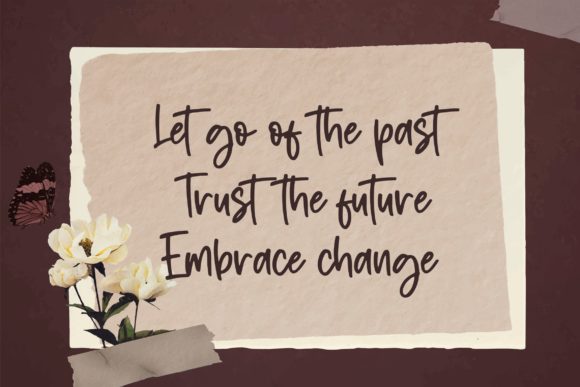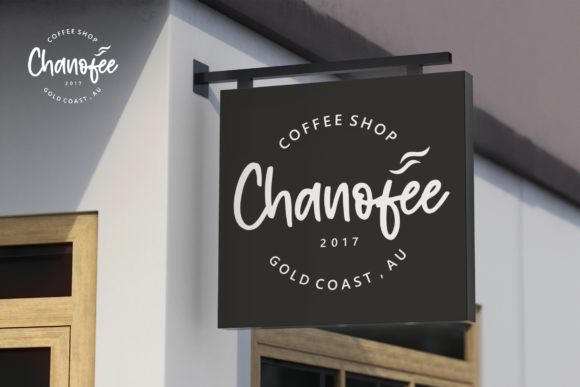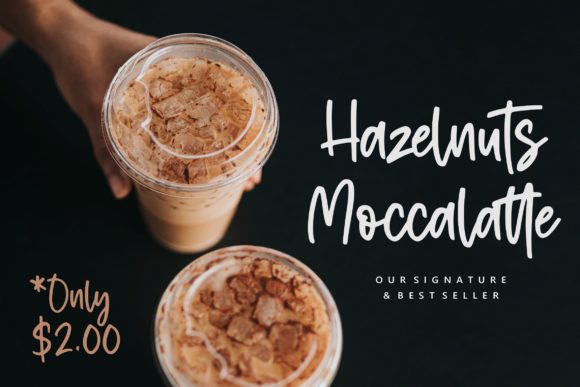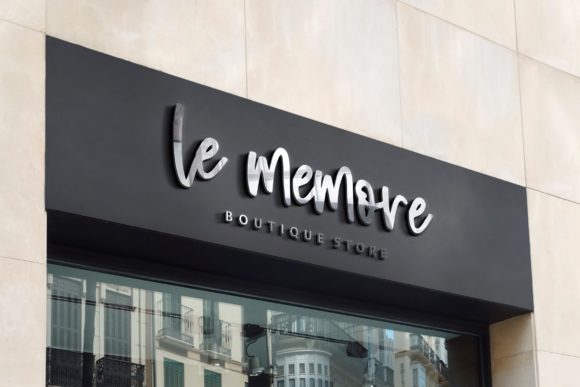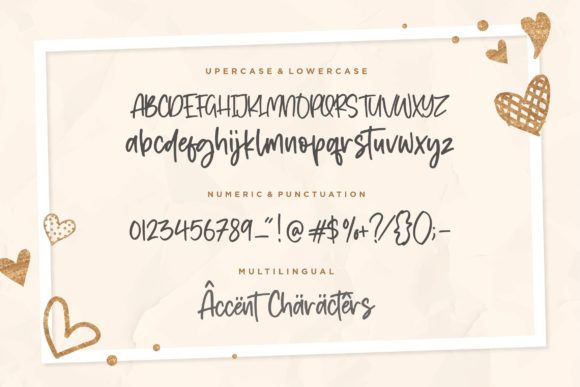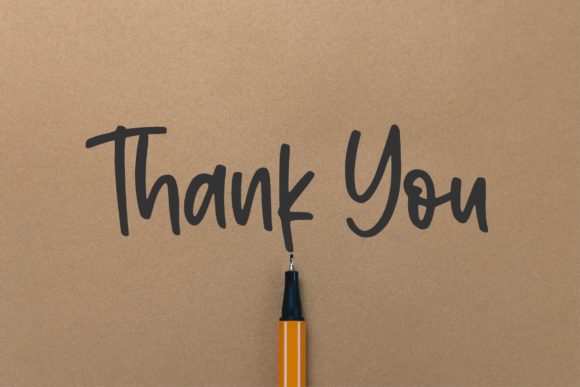
A Touch of Whimsy: Discovering the Delight of Austrian Script Font
Have you ever stumbled upon a beautiful handwritten note from a loved one, and felt an instant rush of warmth and happiness? For many of us, the imperfections and flourishes of a handwritten script can evoke a sense of intimacy and connection. As designers, we’re always on the lookout for the perfect font to convey this emotional resonance – and that’s where the Austrian Script Font comes in.
This sweet and delicate font is a dream come true for designers seeking to add a touch of romance and whimsy to their projects. Ideal for wedding invitations, cards, and other designs that require a personalized touch, the Austrian Script Font is a valuable addition to any design toolkit. With its dainty and joyful feel, it’s sure to leave a lasting impression on your audience.
- Unique Characteristics: Elegant, cursive script style with a vintage flair, ideal for creative and artistic projects
Austrian Script Font Review
Overall, I think Austrian Script Font is a beautiful and elegant font that can add a touch of sophistication to any design project. ✨ Its flowing connections and ornate details evoke the classic feel of handwritten script, making it perfect for wedding invitations, luxury branding, or other high-end designs.
- ✨ Unique and ornate details that make it stand out from other script fonts
- ✨ Perfect for projects that require a touch of elegance and sophistication
- ✨ Great for creating a sense of luxury and high-end branding
However, there are a few limitations to consider. ⚠️ The font is not ideal for projects that require a lot of text or tight spacing, as the flowing connections can make it difficult to read in certain situations. Additionally, the font may not be suitable for digital use, as the ornate details can become distorted or blurry at smaller sizes.
Overall, I would recommend Austrian Script Font for projects that require a touch of elegance and sophistication. While it may have some limitations, its unique details and ornate feel make it a great choice for luxury branding, wedding invitations, and other high-end designs.
To get the most out of the Austrian Script font, try the following:
Use it sparingly to add emphasis to important text.
Pair it with a bold font to create contrast.
Use it for titles, headings, and quotes to add a touch of elegance.
The Austrian Script font is perfect for:
Business cards and marketing materials.
Book covers and literary publications.